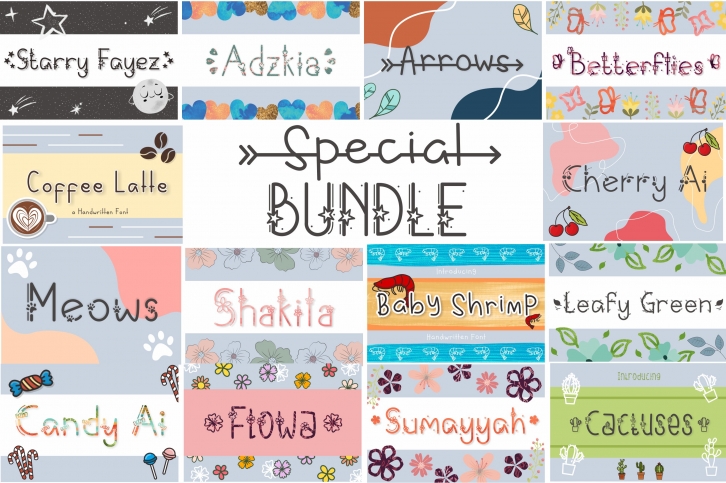
Special Bundle is a gorgeous font that was realeased on September 1, 2020. The font can be used in many style contexts and design environments. Perfect for invitations, magazines, websites, logos, and more! It was designed by Aisyah and the file size is 2.35 MB. Thanks for checking out this font!